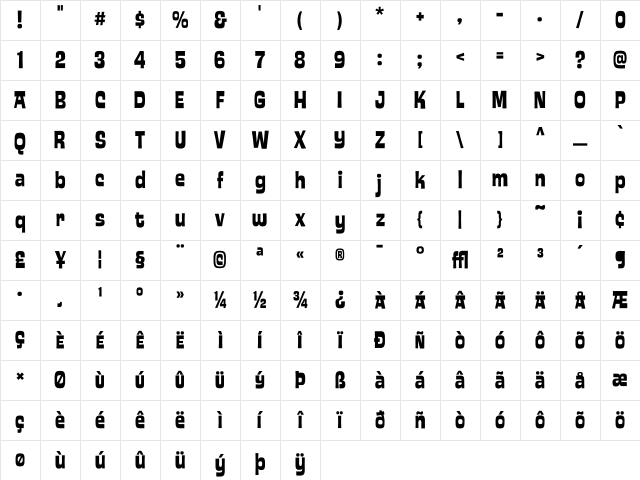
EdPS Interlock
Style: Interlock
EdPS Family
EdPS Interlock
Design Context for EdPS
EdPS is a composed and adaptable typeface that performs quietly and consistently across a wide range of design contexts.